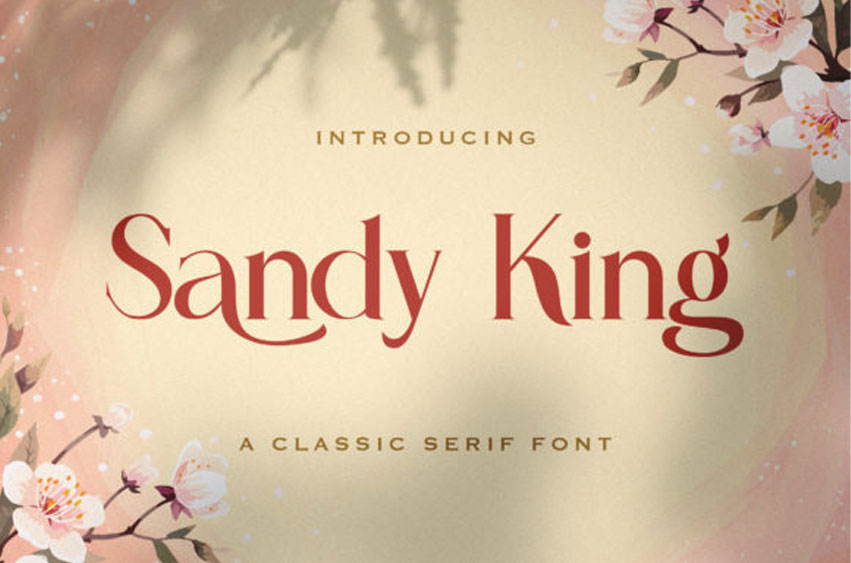
Sandy King Font
Sandy King Font is an authentic and cool serif font.
Whether you’re using it for crafting, digital designing, presentations or greeting cards making, it’s perfect!